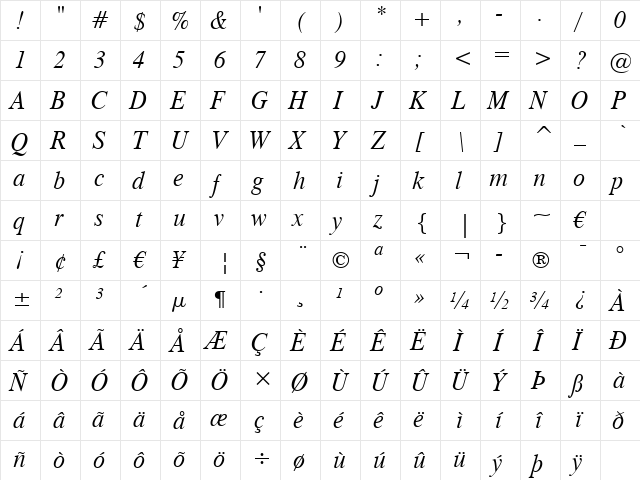
Dutch801 ItHd BT Italic
Design Context for Dutch801 ItHd BT Typeface
Dutch801 ItHd BT is a composed and adaptable typeface that performs quietly and consistently across a wide range of design contexts. Its italic angle brings a sense of urgency and motion to the letterforms.
Pro Tip: Use Dutch801 ItHd BT for emphasis, pull quotes, and subheadings where its slanted energy can add rhythm to the layout.